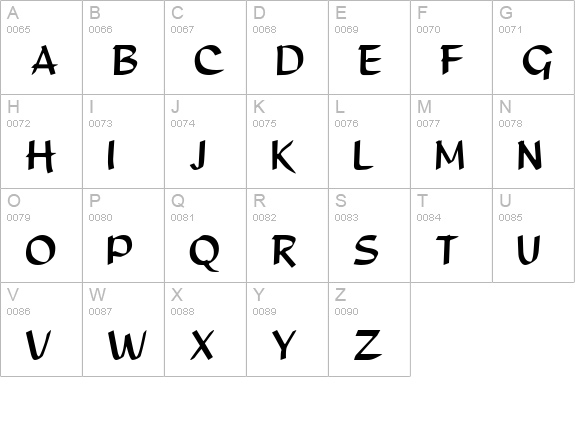
Beauregard Display SSi Font Details
Beauregard Display SSi font exudes elegance and sophistication with its timeless design and classic appeal. This versatile typeface is perfect for adding a touch of sophistication to any project, whether it be for branding, editorial design, or signage. What sets Beauregard Display SSi font apart is its unique blend of traditional letterforms with a modern twist, making it a truly standout choice for any design application. The tall x-height and subtle serifs give this font a refined look, while the generous spacing ensures readability even at smaller sizes. Best of all, Beauregard Display SSi font is available for free download at FontsMarket.com. So why wait? Add a touch of class to your next project with this exquisite typeface today!